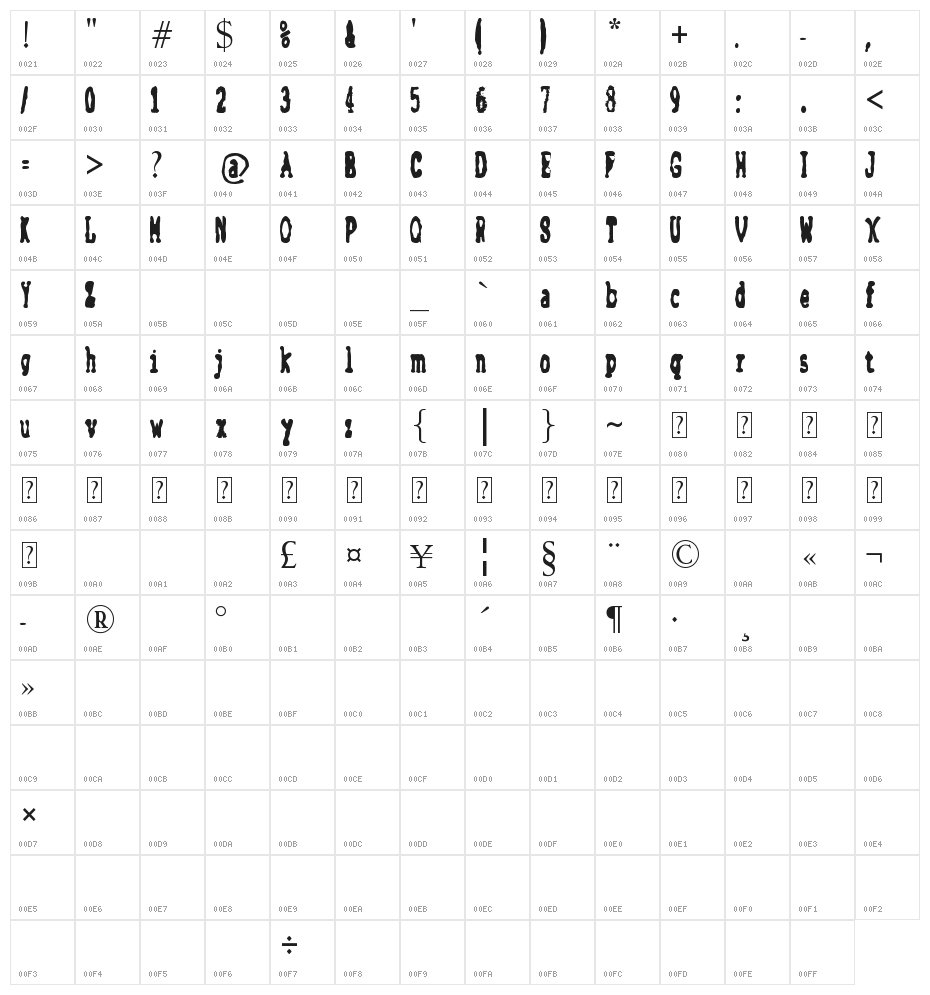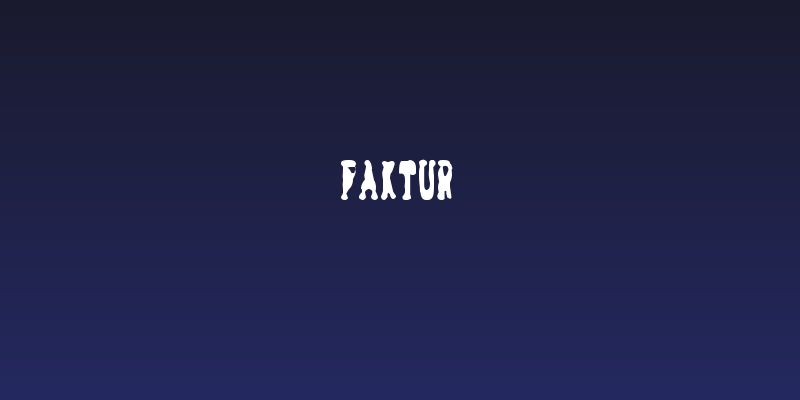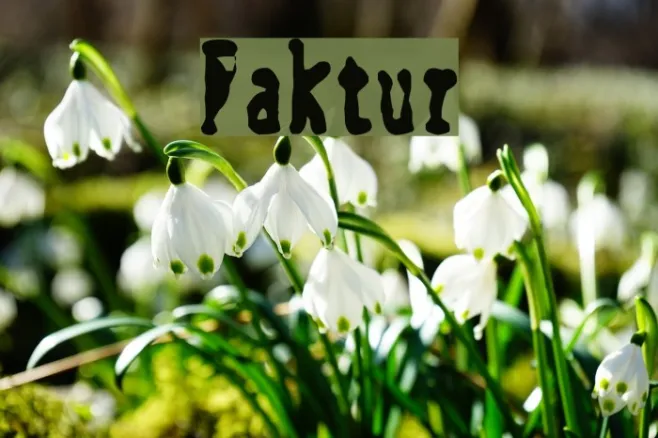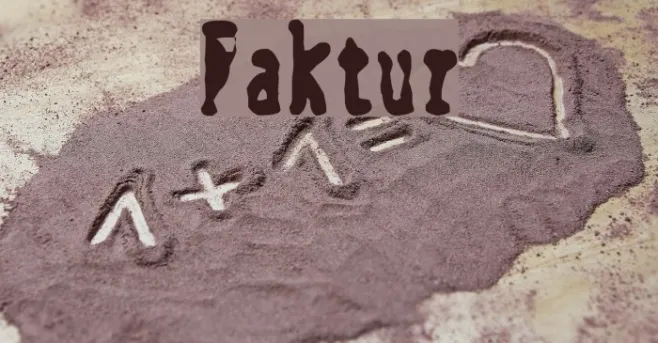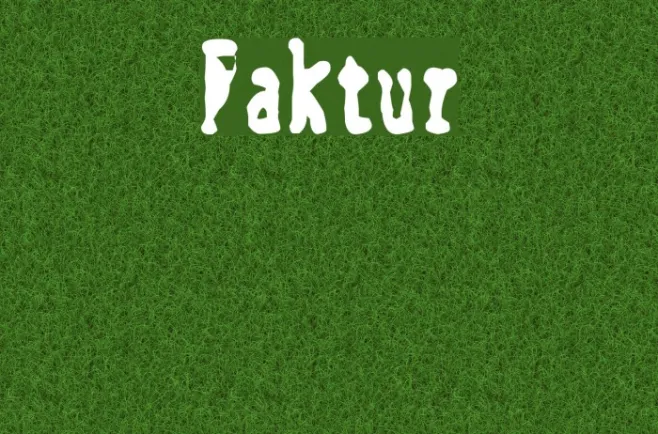
Faktur Font
Faktur Description
This font features a bold and distressed style, characterized by its uneven and rugged edges. The letters have a hand-crafted appearance, giving them a unique and artistic flair. The uppercase and lowercase letters maintain a consistent style, with a slightly condensed width. The numbers and special characters follow the same distressed aesthetic, adding to the overall cohesive look. This font is ideal for projects that require a bold statement or a vintage, grunge-inspired design.
| Overall Style | Vintage, Grunge |
| Proposed Projects | Ideal for posters, album covers, branding for edgy or vintage-themed products, and artistic projects requiring a bold statement. |